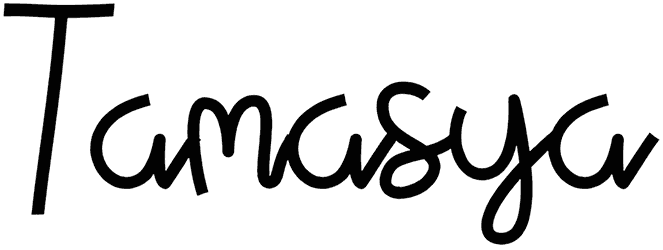
Tamasya Font
If you’re looking to add a natural feel to your digital projects, then look no further than Tamasya, a handwritten font that can be utilized to achieve this effect. The relaxed feel of this script font makes it an effective choice for use in ads, flyers, fashion, and greeting cards.
This font is suitable for lettering, invitation, or any your packaging product that need classy and stylish font. Enjoy it.